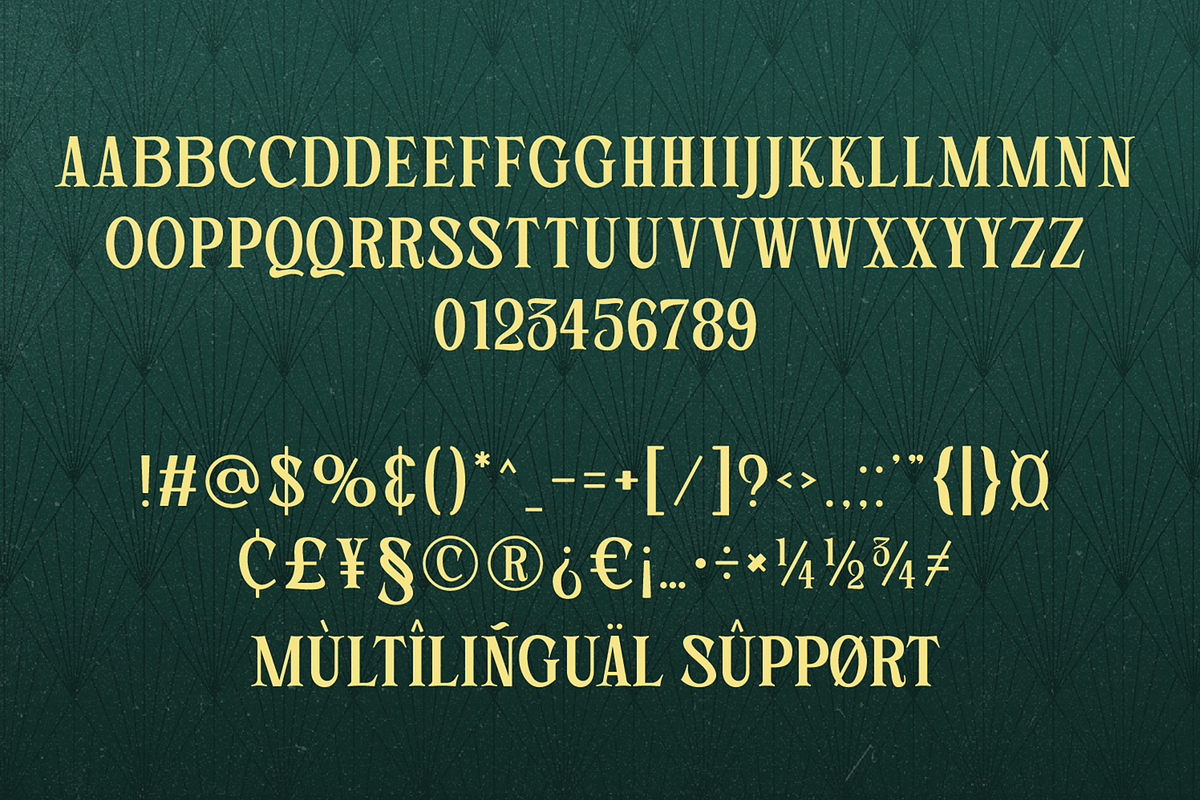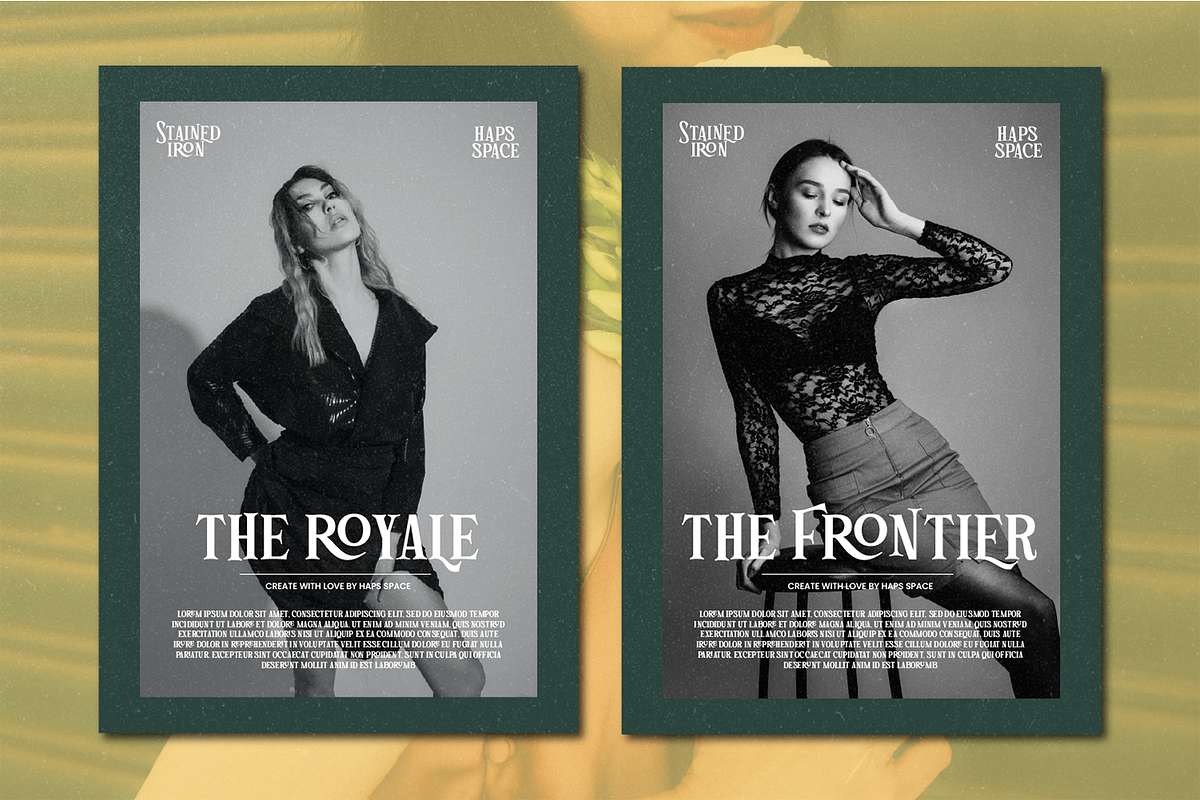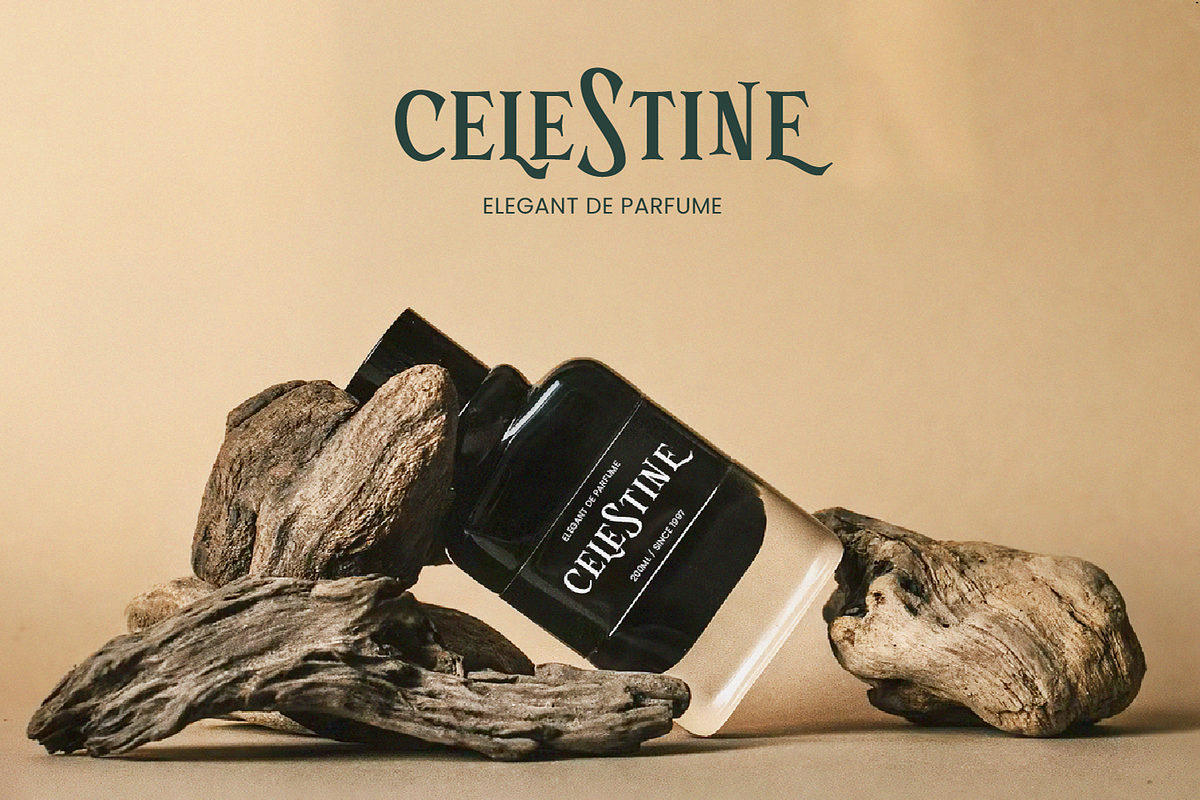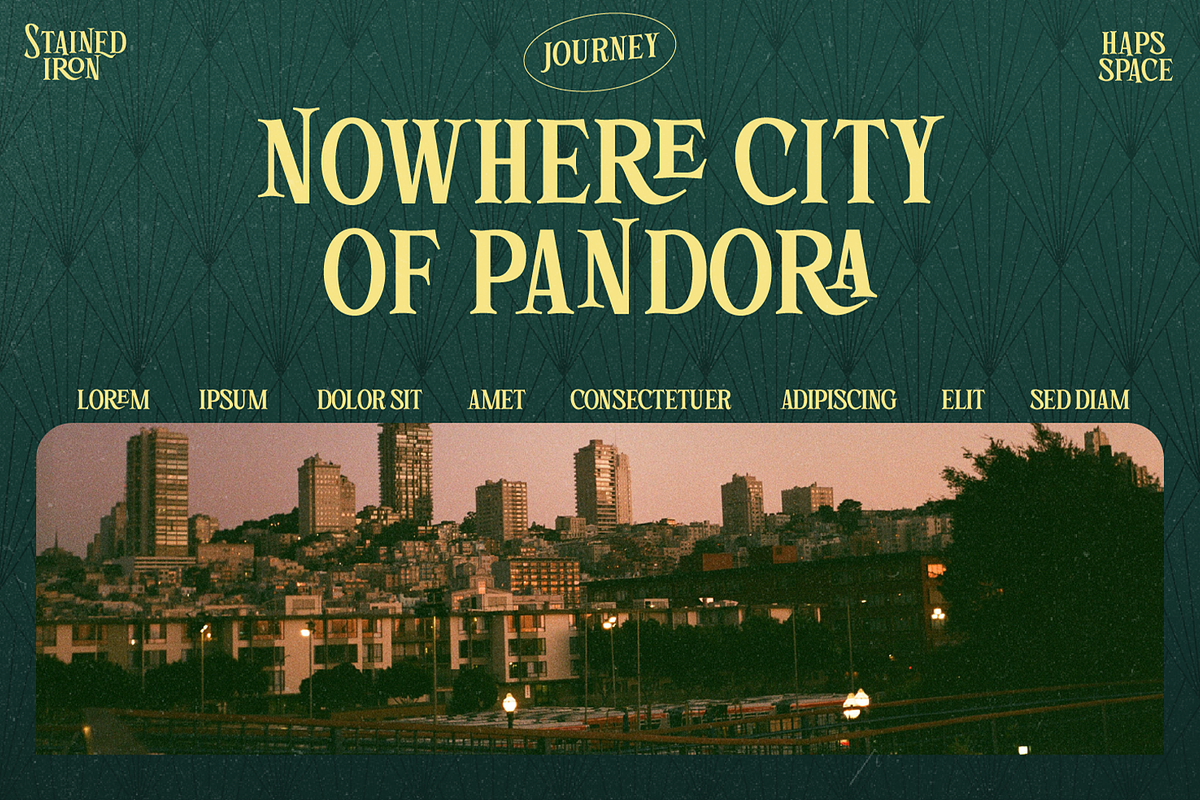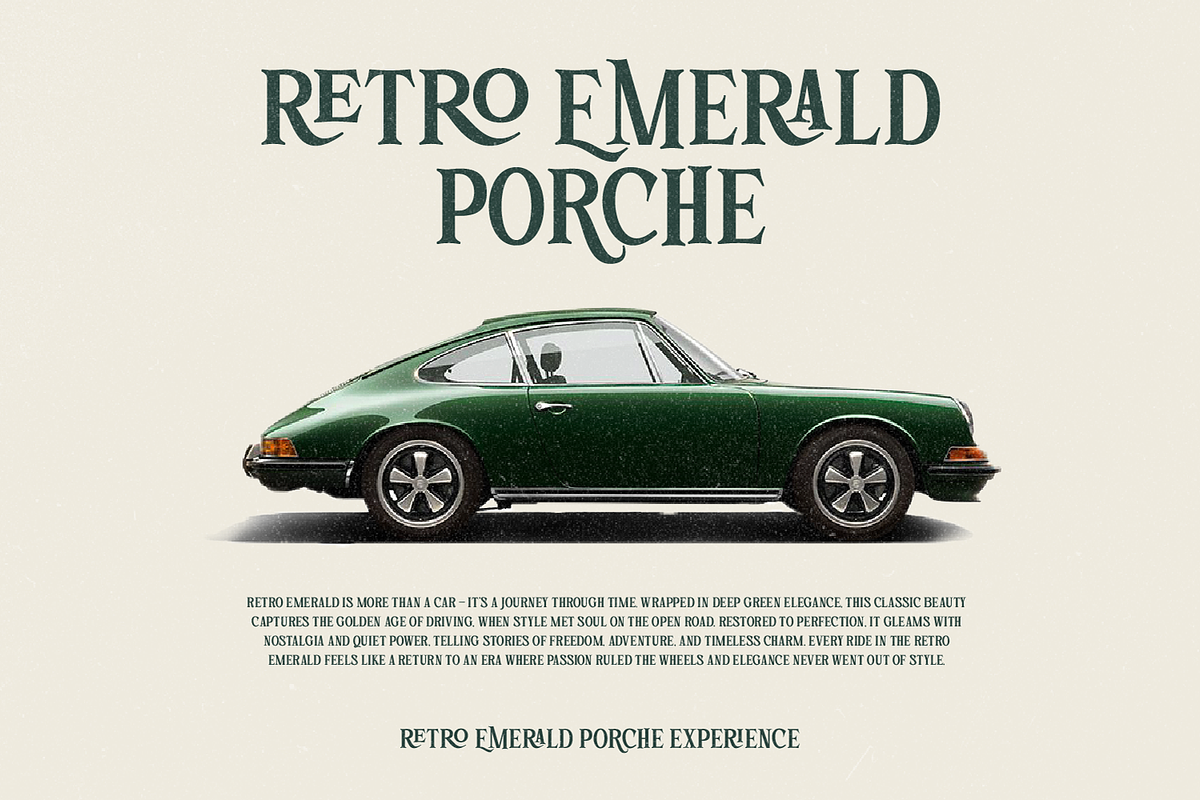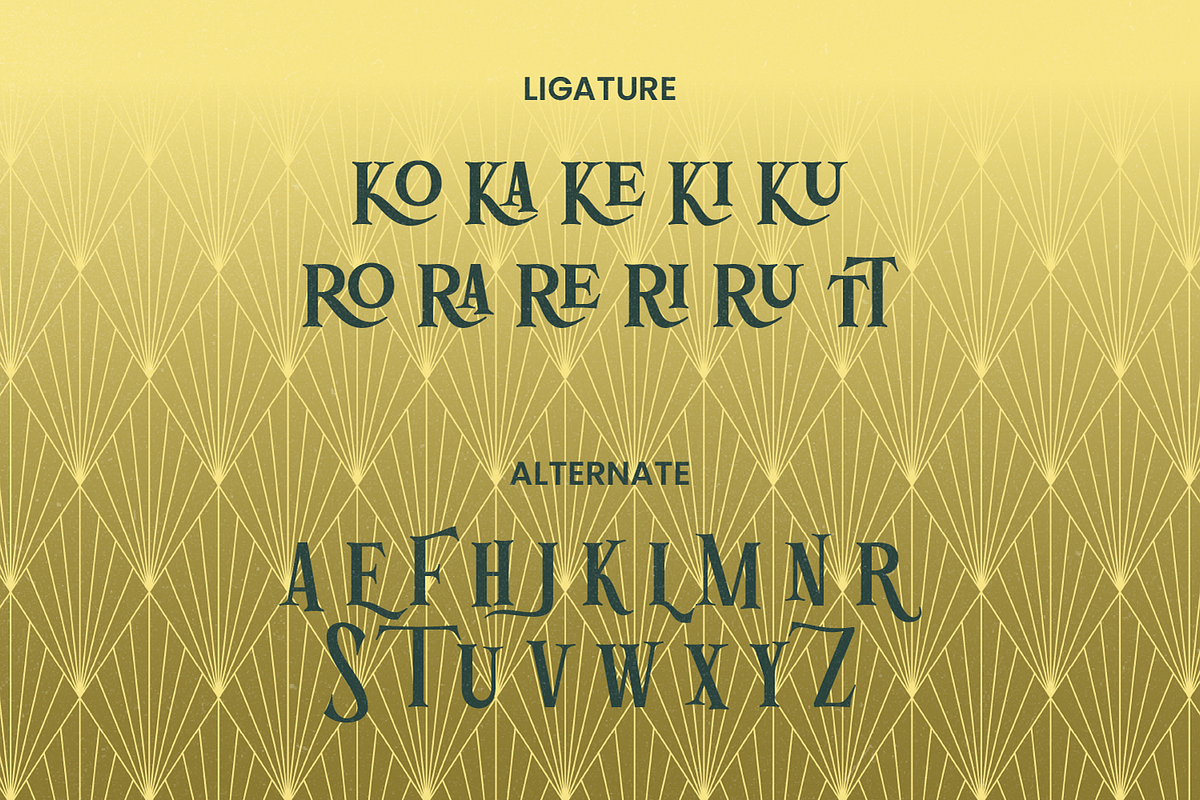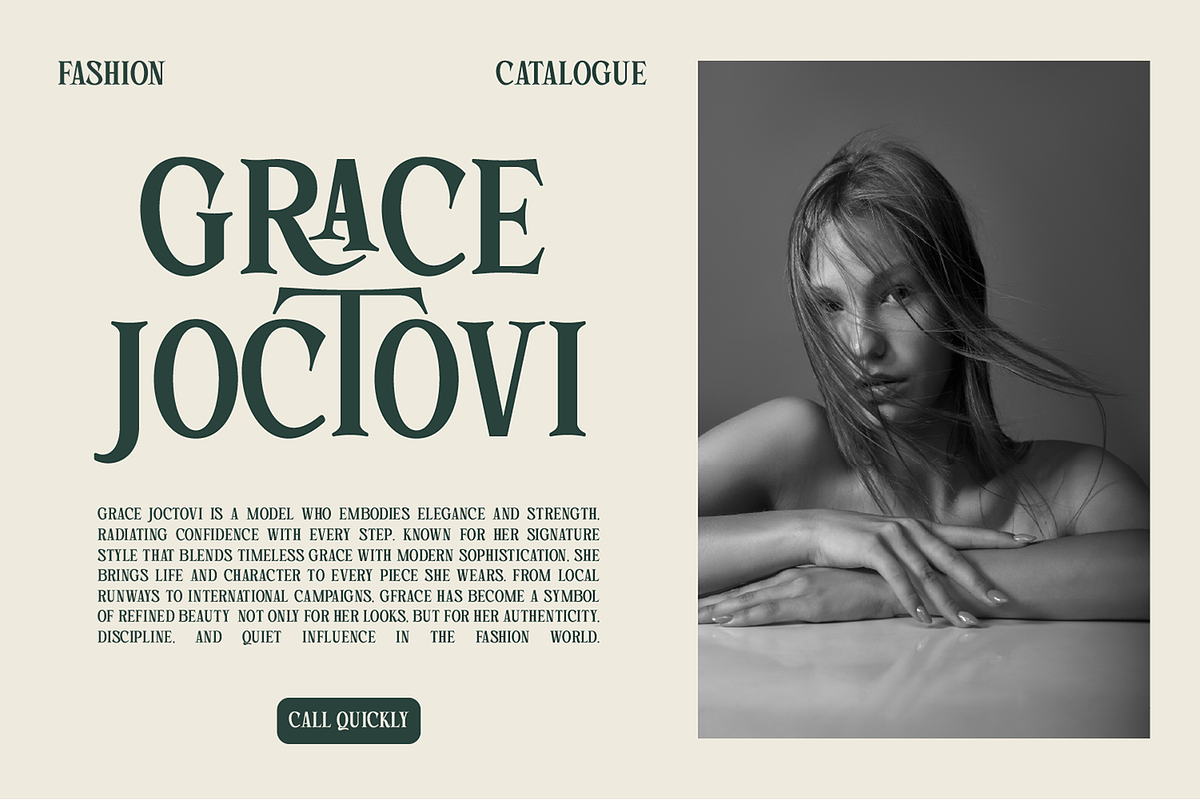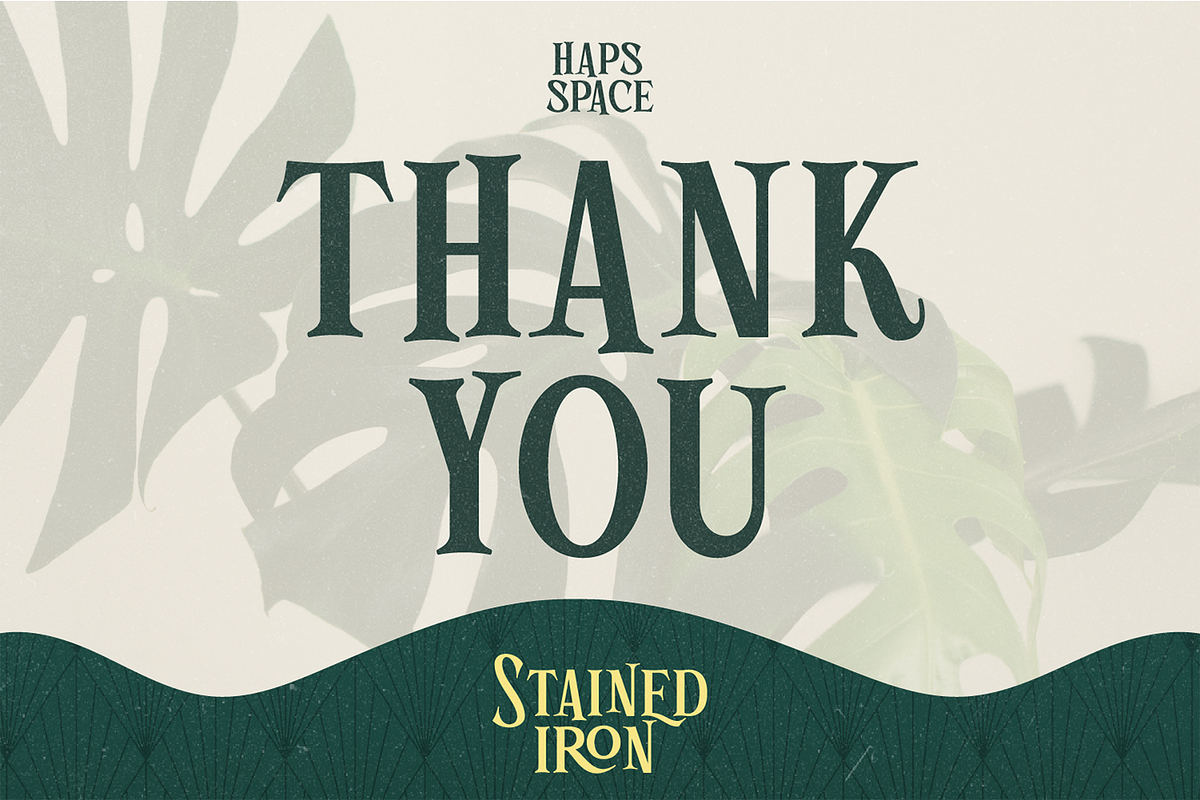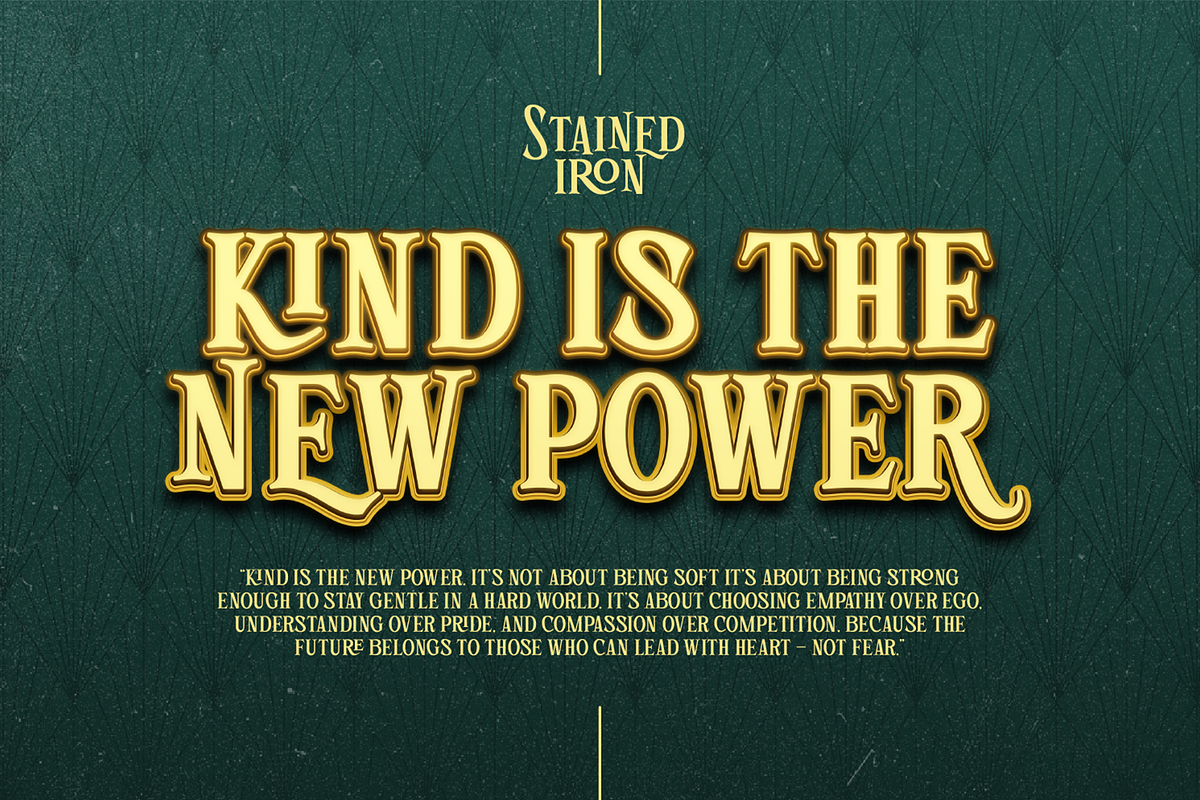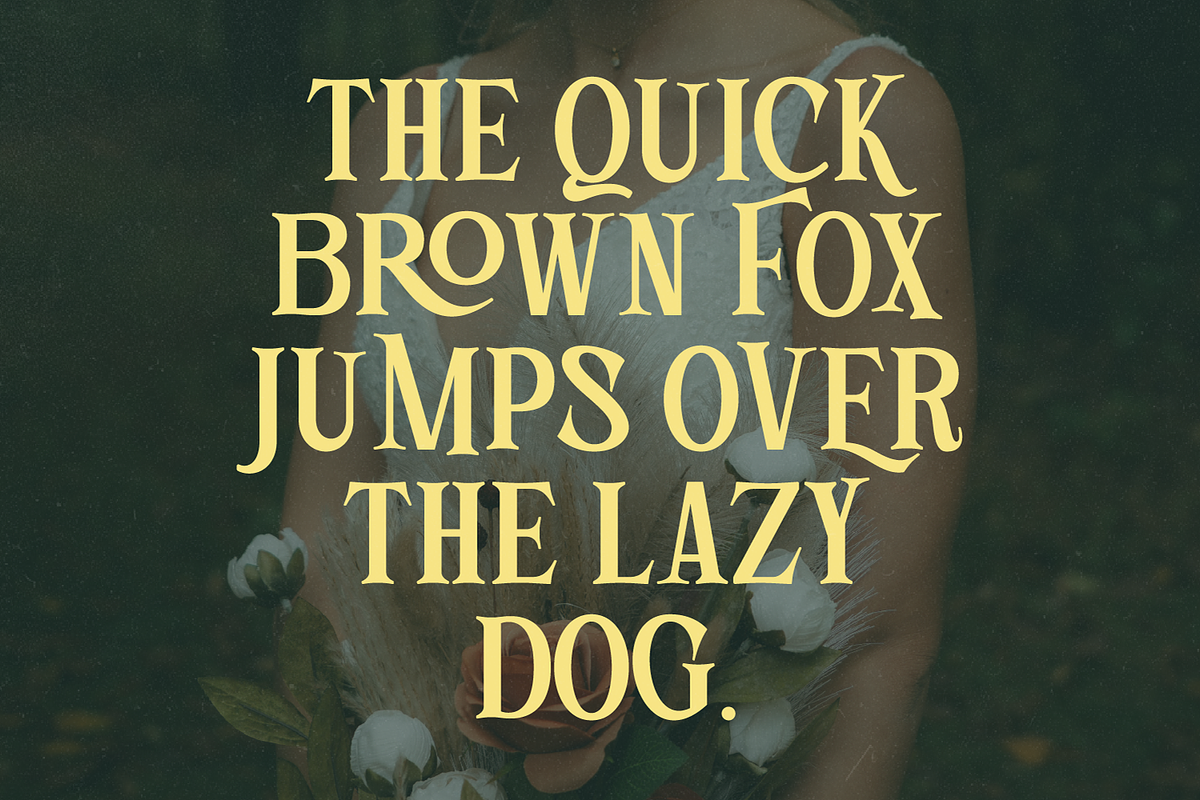
Stained Iron Playful Serif
Stained Iron is a playful serif font that blends classic elegance with expressive, artistic details. Featuring sharp serifs, flowing curves, and distinctive swashes, this font delivers a refined yet creative personality that stands out in any design.
Designed to feel both sophisticated and fun, Stained Iron is perfect for projects that need a strong typographic presence with a touch of charm and uniqueness.
- Playful serif display font
- Elegant letterforms with decorative details
- Stylish swashes and smooth curves
- Strong readability with artistic character
- Perfect balance of classic and modern style
- Branding & logo design
- Editorial & magazine layouts
- Book covers & packaging
- Fashion & lifestyle projects
- Wedding & luxury invitations
- Posters, headlines & creative typography
* Full multilingual character set
* OpenType features such as ligatures and alternates